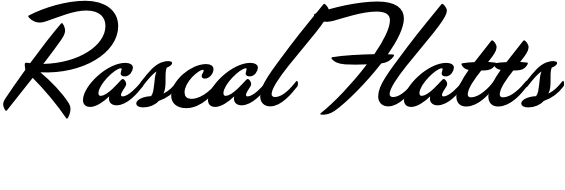
Rascal Flatts Font
CountryRascal Flatts is a country music group formed in 1999, known for their harmony-rich sound and hit songs such as "Bless the Broken Road" and "What Hurts the Most."
The title of the album, as shown on the cover art, is OCR-A, a monospaced font released in 1968. And the band name is set in a modified version of House Industries's Las Vegas Fabulous font.